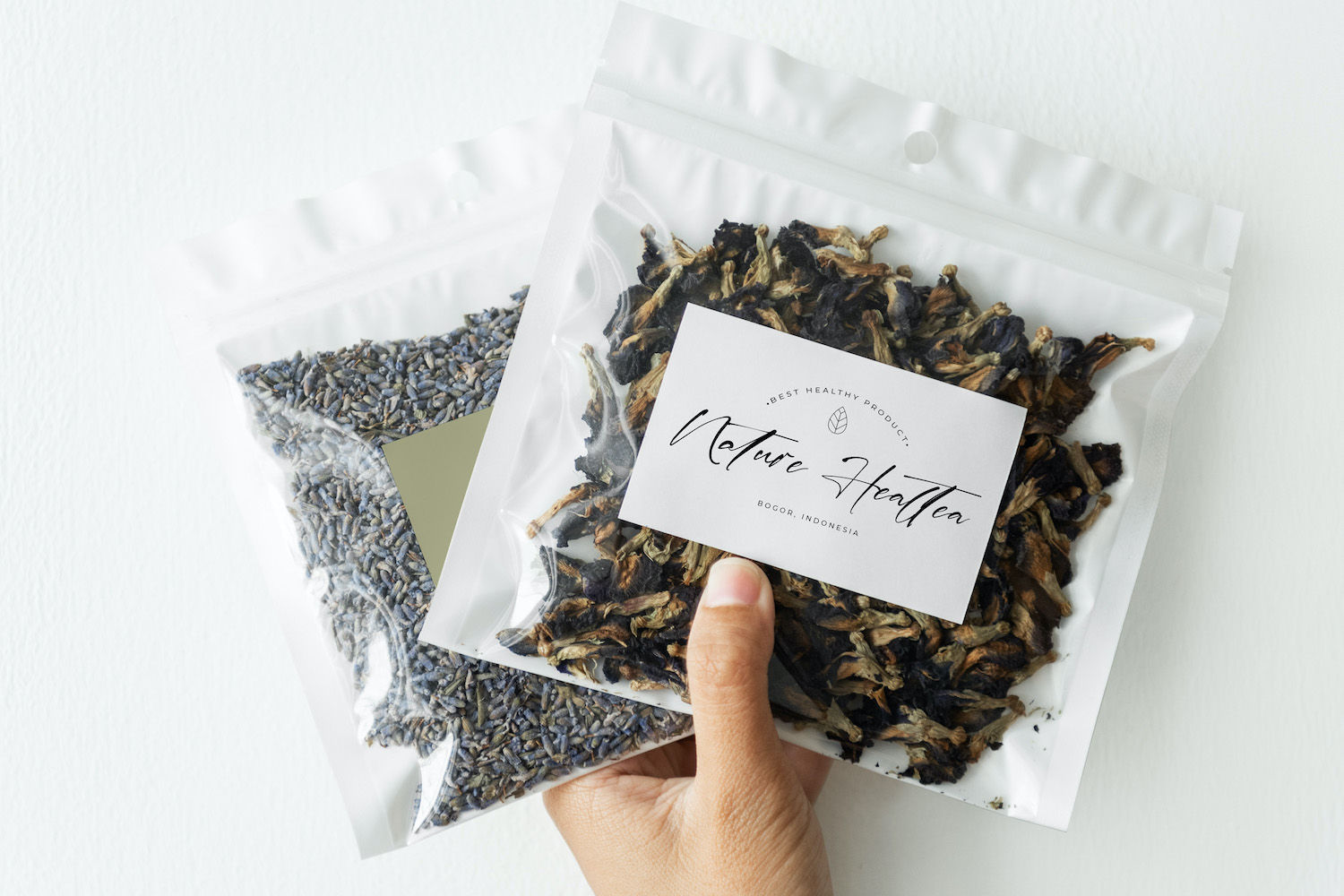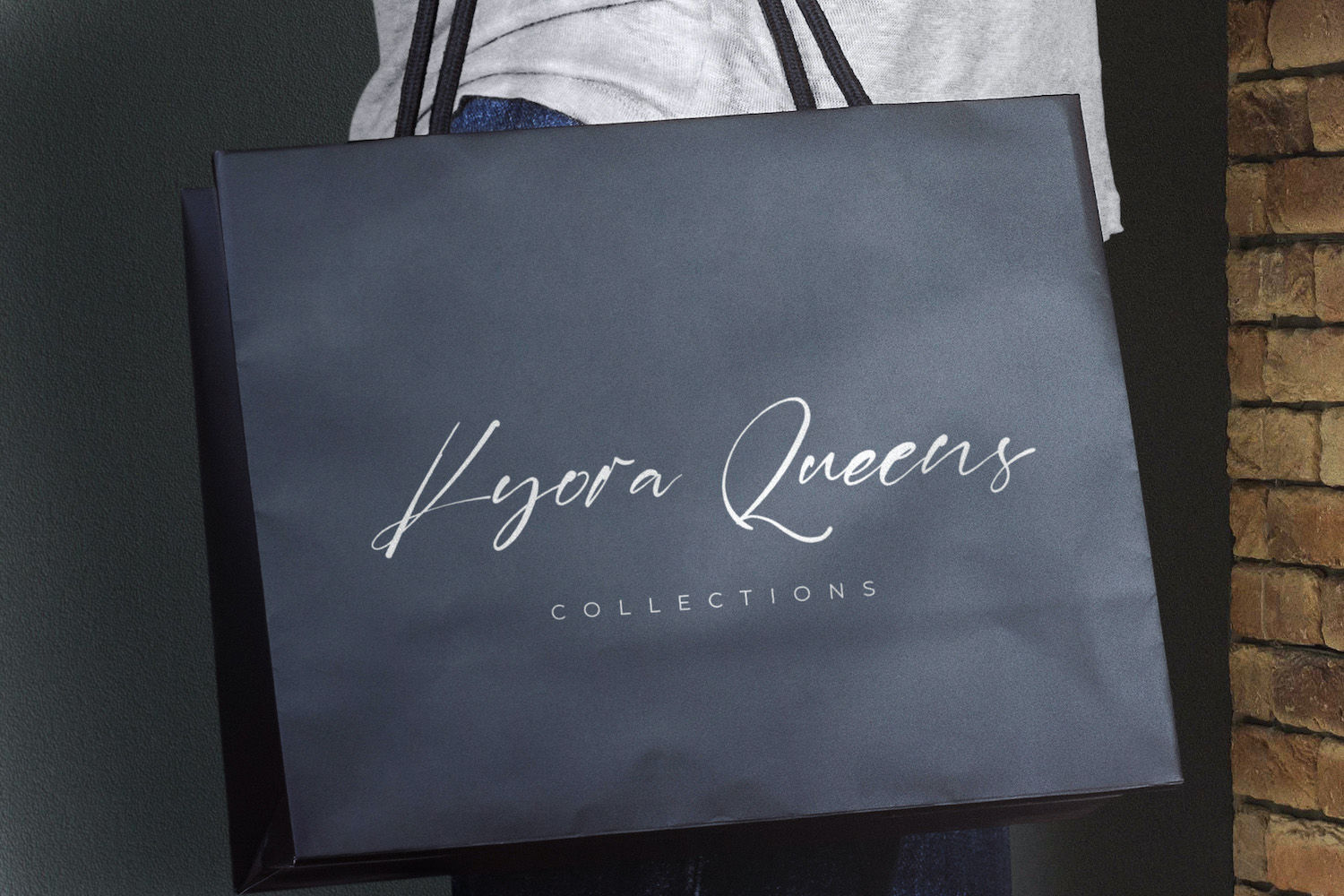
Laneky Haizen is a signature-style handwritten script crafted to look like real pen lettering—light, fluid, and effortlessly personal. It’s a great choice when you want typography that feels human and intimate, without losing that clean, modern polish needed for branding and presentation designs.
The writing flow is smooth and elongated, with slender strokes, airy spacing, and sweeping capitals that create a natural “signed” rhythm. Subtle connections and built-in ligatures help common letter pairs sit more comfortably, so short names and phrases feel continuous rather than typed. For best impact, use it at medium-to-large sizes where the elegant lines and long cross-strokes can breathe.
Laneky Haizen sits in a sweet spot between manual and refined: it keeps the organic imperfections of handwriting, yet stays tidy enough for minimalist layouts. The overall mood is calm, romantic, and slightly premium—perfect for adding warmth and authenticity, but less ideal for dense text, tiny captions, or designs that demand ultra-high legibility at small sizes.
It’s especially fitting for personal projects like wedding names and monograms, love notes and greeting cards, journal covers, photo watermarks, Instagram quote posts, personal logos, and handmade product tags/labels. Pair it with a neutral sans-serif, keep phrases short, and enable ligatures for the most natural results.